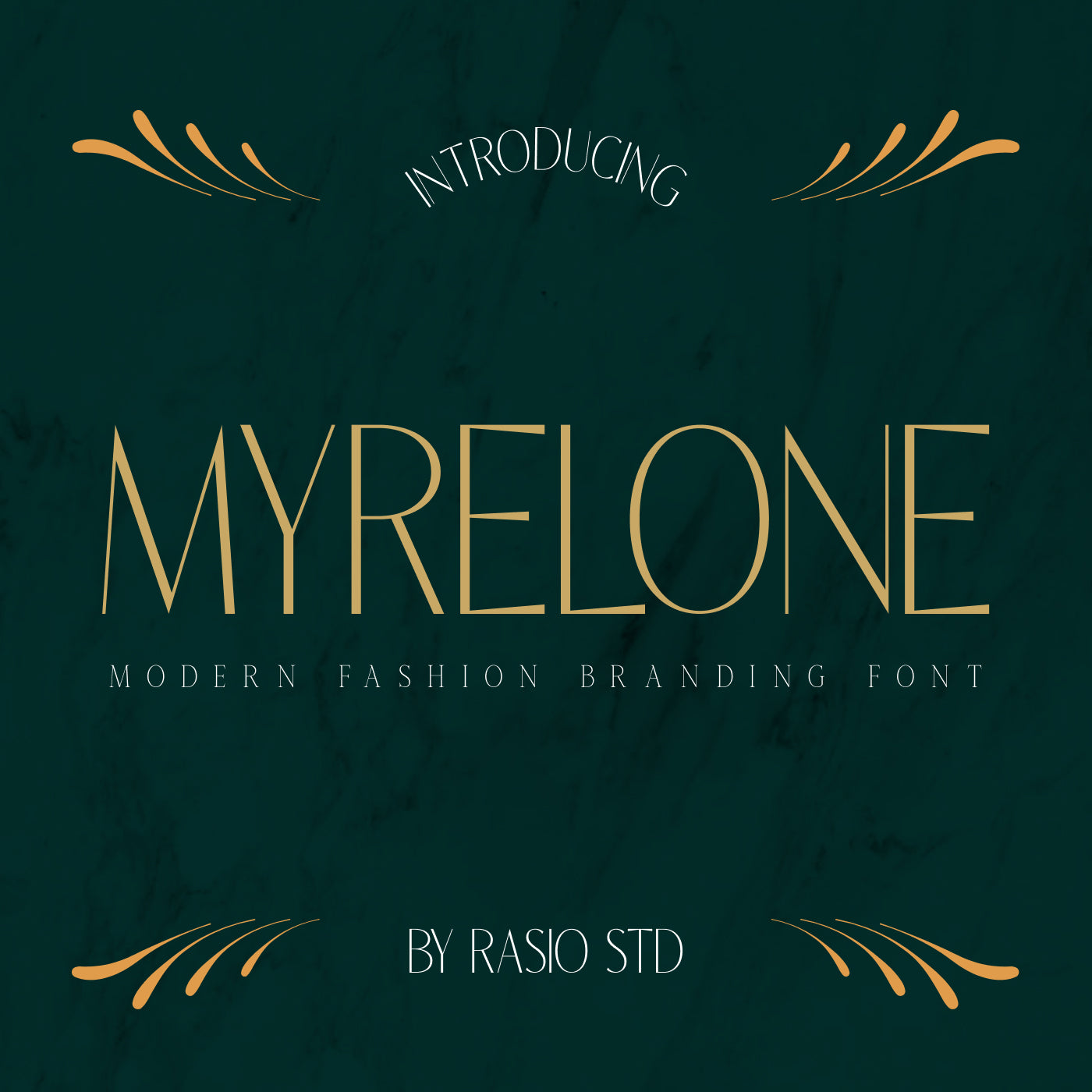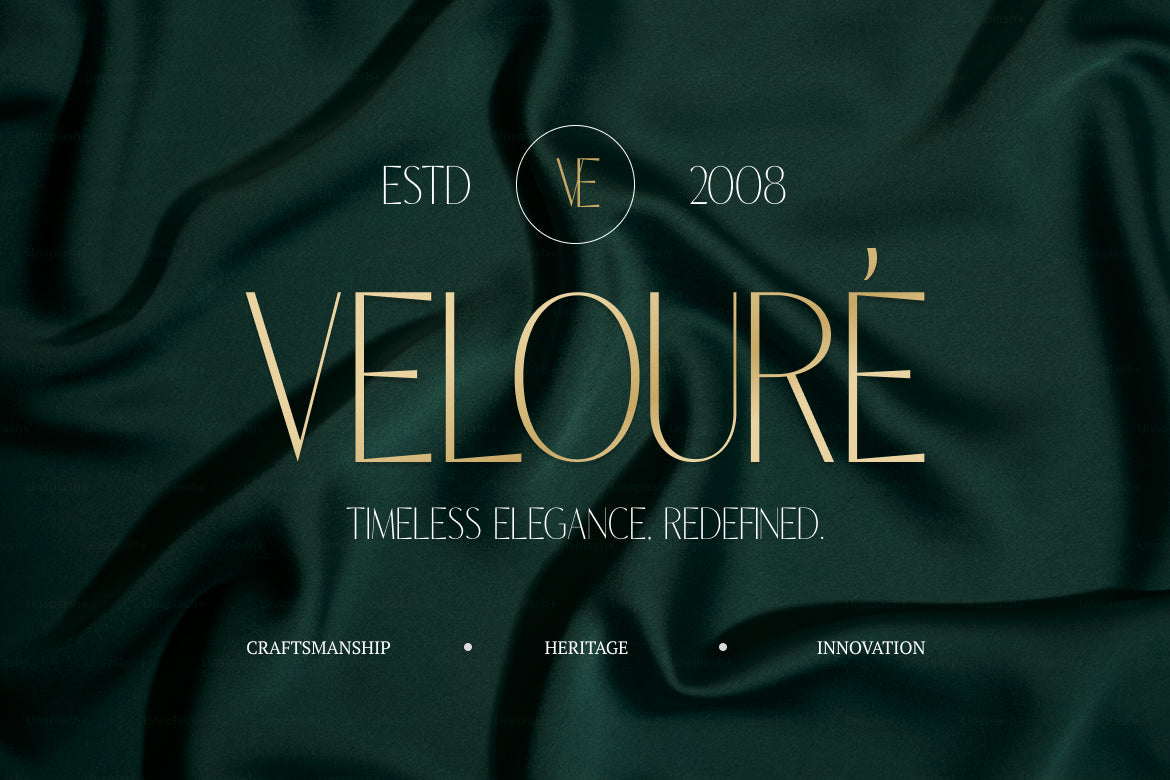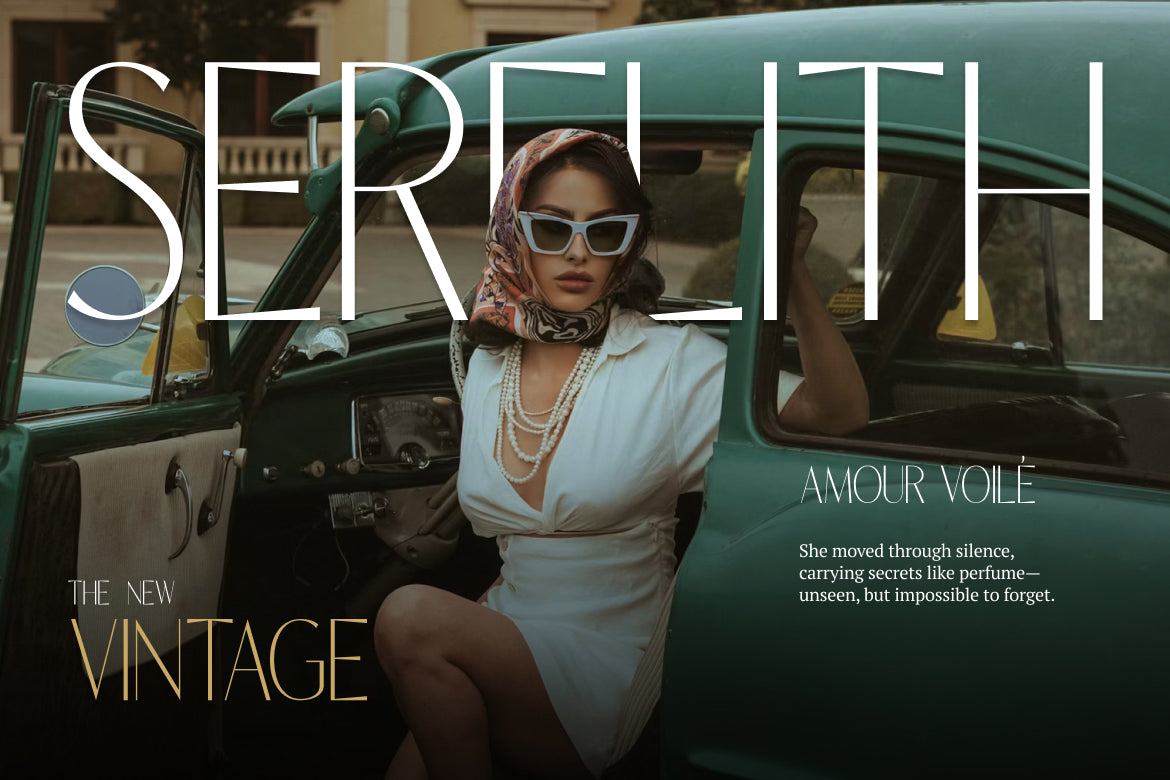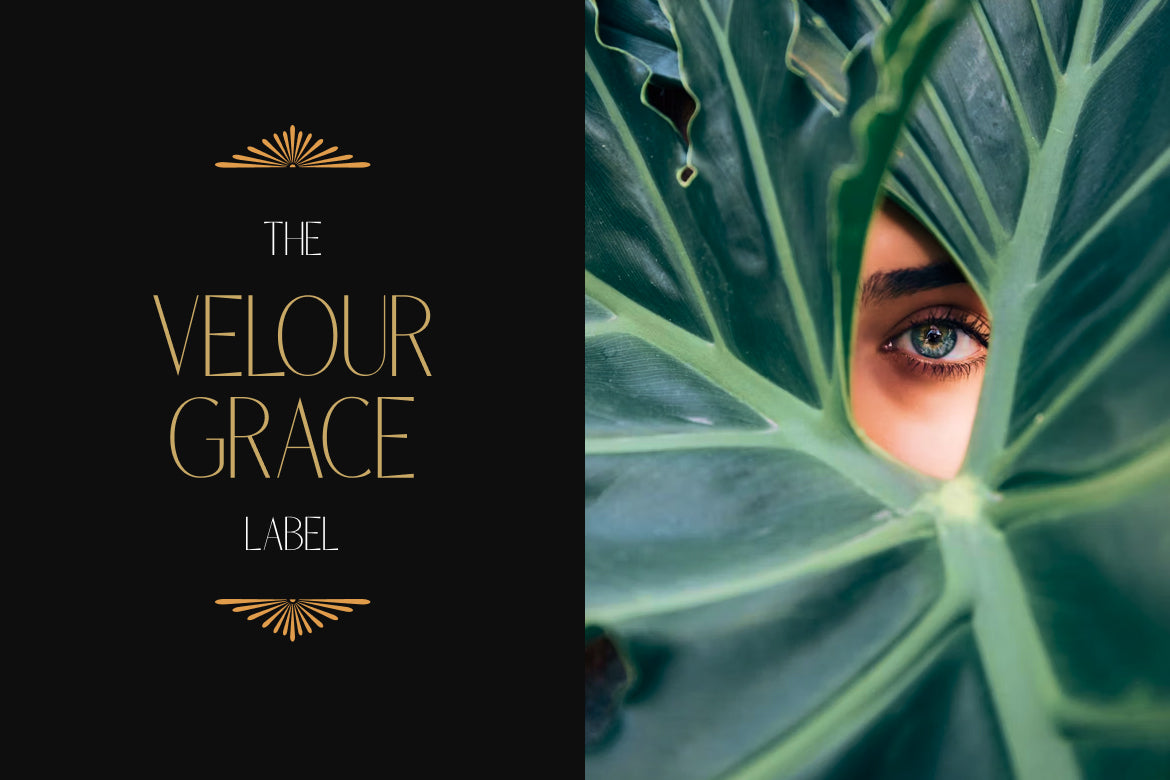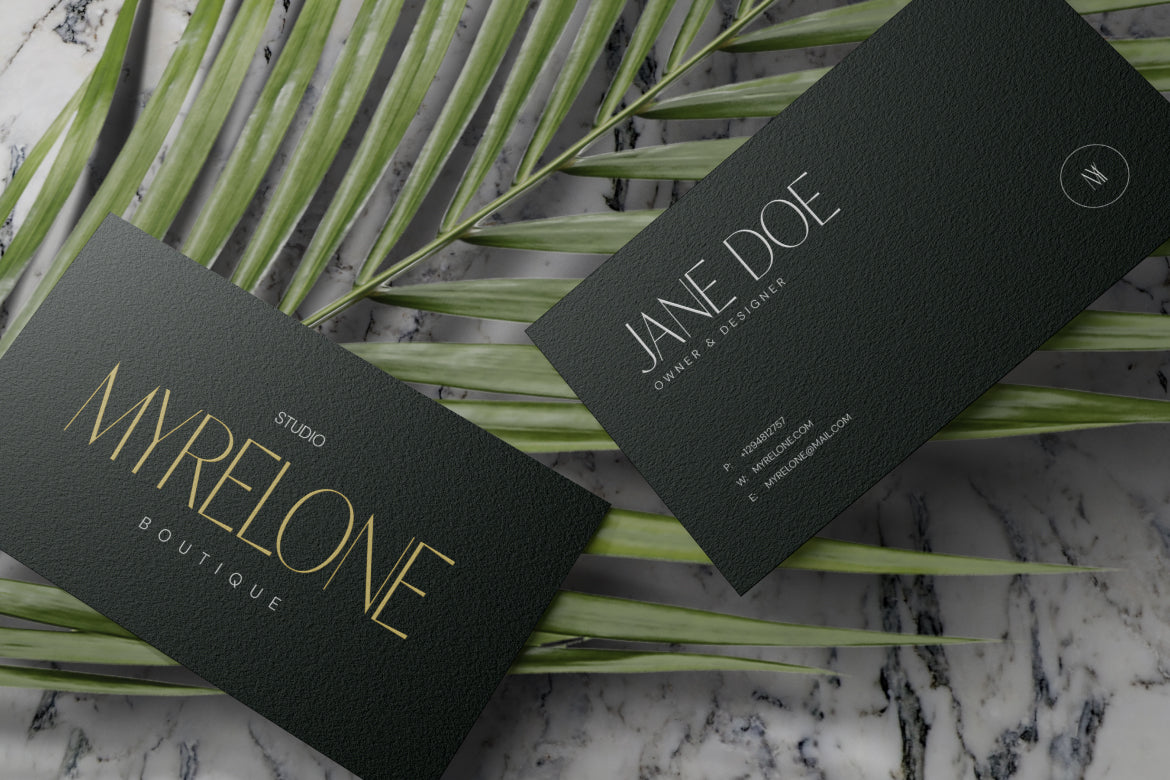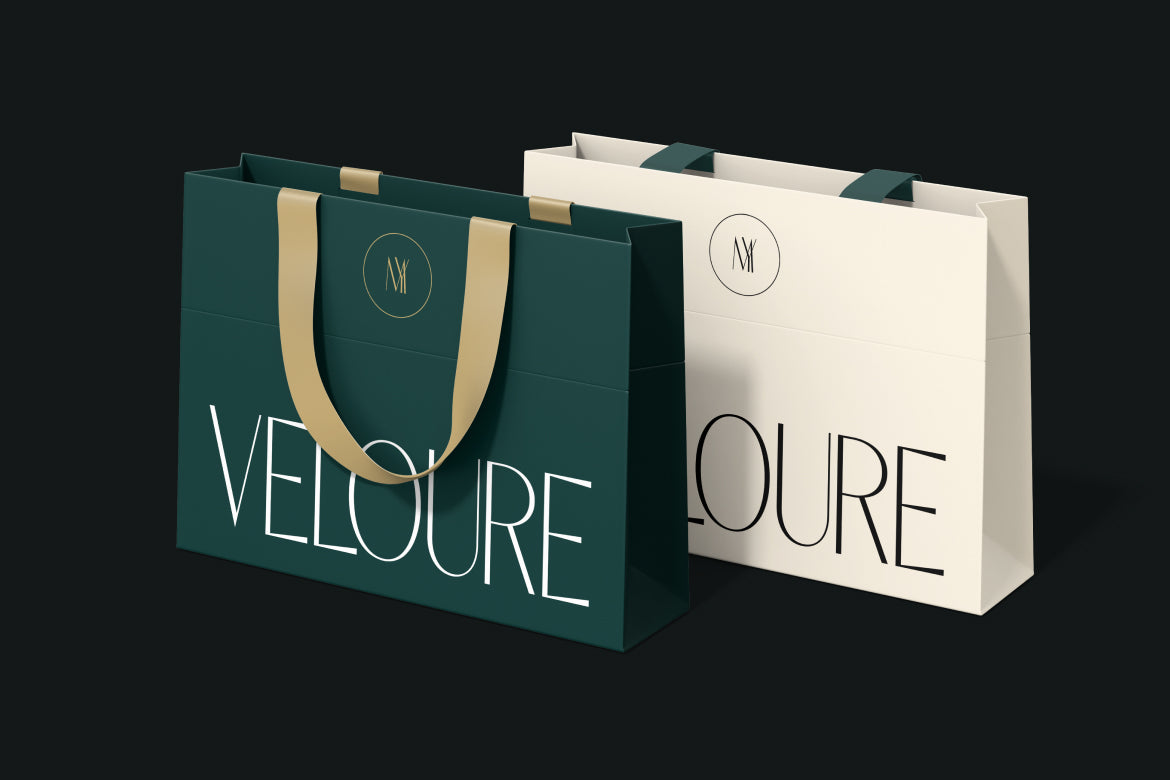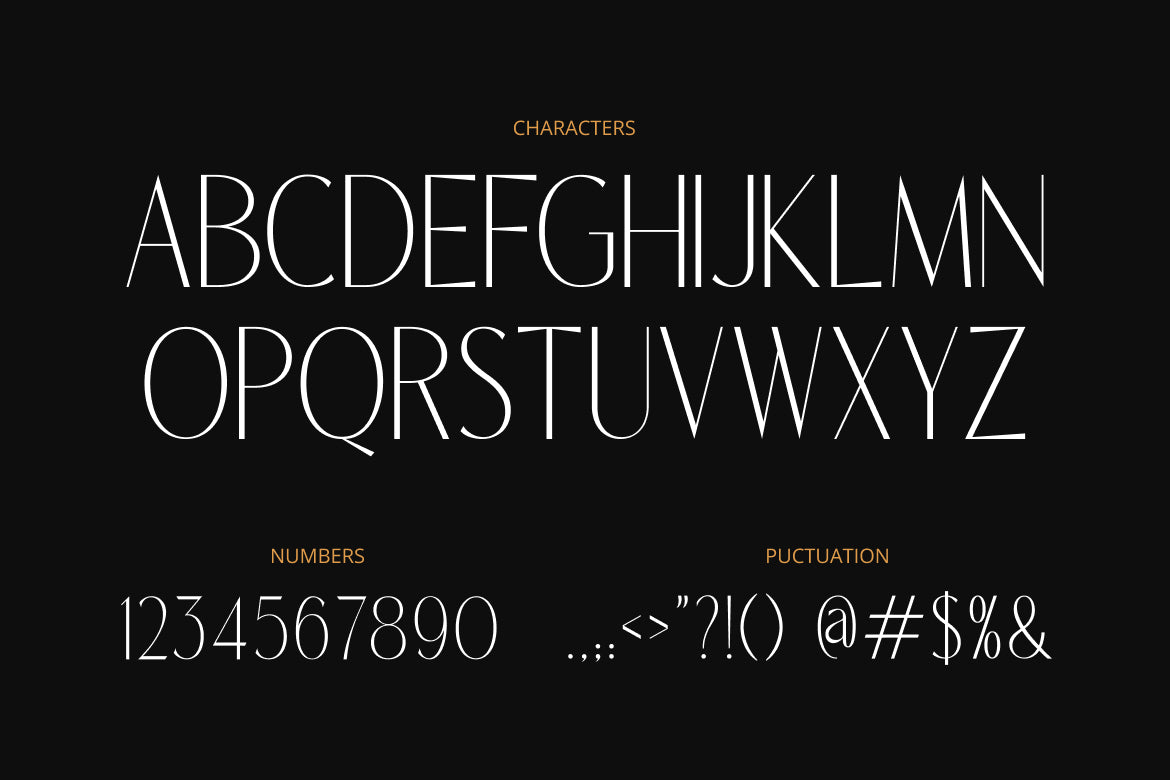
Myrelone Modern Fashion Branding Font
Myrelone Fashion Branding Font is a sophisticated display typeface designed with tall proportions, refined geometric construction, and graceful minimalist details. Its slim letterforms, generous spacing, and clean linear strokes create an elegant visual rhythm that captures the essence of contemporary fashion, luxury branding, and premium editorial design. The balanced structure delivers a sleek appearance while maintaining excellent clarity for large-format typography.
Each character is carefully crafted with consistent stroke weight, elongated vertical forms, and spacious counters to achieve a modern yet timeless aesthetic. The minimalist construction allows headlines, logos, and brand identities to appear refined without unnecessary ornamentation, making the typeface suitable for premium visual communication across both digital and print media. Myrelone is compatible with major design software on Windows and macOS. Optimized primarily for display typography, it performs exceptionally well in luxury branding, fashion campaigns, editorial headlines, cosmetic packaging, website hero sections, invitations, and sophisticated visual identity systems, while not intended for extended body text.
Myrelone Modern Fashion Branding Font is a sophisticated display typeface featuring tall proportions, refined geometric construction, and minimalist details. Available in OTF, TTF, and WOFF formats, it includes uppercase and lowercase characters, numerals, and punctuation, and is compatible with major design software on Windows and macOS.